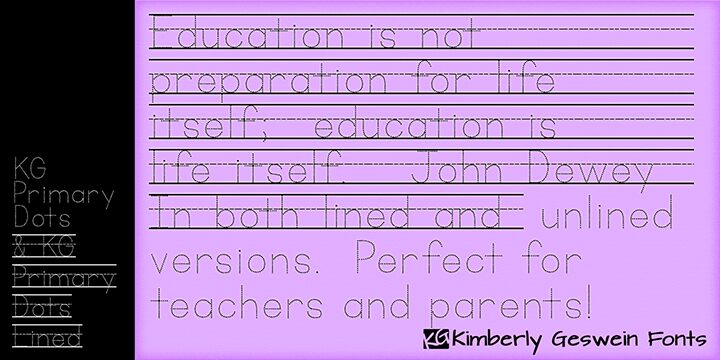
KG Primary Dots Lined Alt by Kimberly Geswein is a free school handwriting font designed around dotted monoline letters and a built-in writing guide. The rounded forms are tall and simple, echoing early penmanship models.
Early handwriting worksheets are its clearest use, since the dotted strokes give children a path to follow and the ruled guide shows letter height and baseline placement. It also suits classroom posters, activity books, and homeschool materials, where ordinary words can become part of a tracing exercise rather than serving only as printed reading instruction.
The dotted letters are available in lined and unlined versions. In the lined version, blank lines can be created by typing with the spacebar.